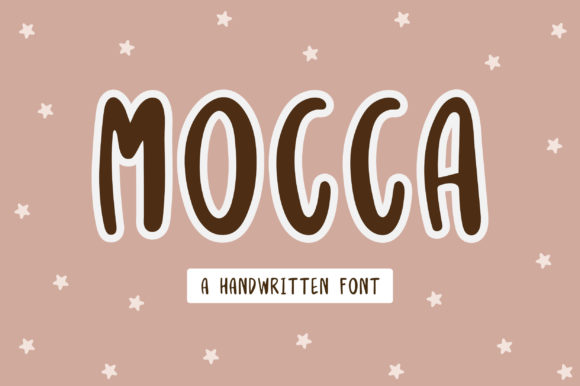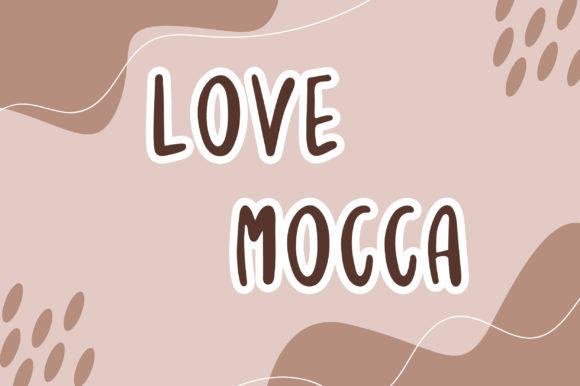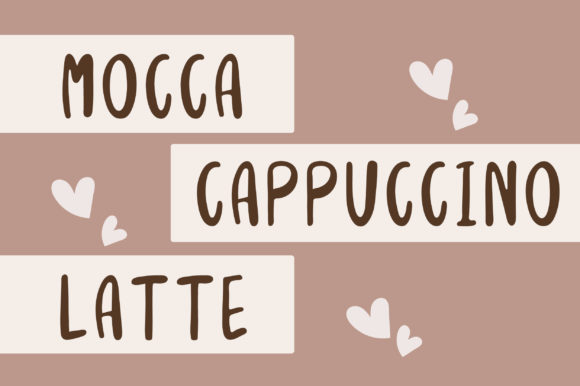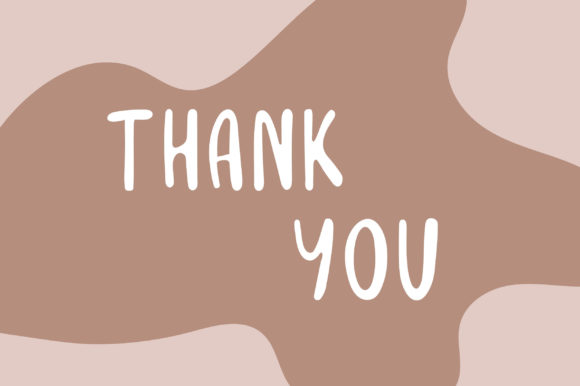
Mocca Font
About Mocca Font
Mocca, a delightful and friendly handwritten font, adds a playful touch to your design endeavors. With its fun and approachable demeanor, Mocca is more than just a typeface; it’s a creative tool that can turn any design idea into a true standout. Let yourself be inspired by its unique charm, and watch as it effortlessly breathes life into your projects, allowing you to craft lovely and engaging designs with ease.
The inherent playfulness of Mocca makes it a perfect choice for a variety of design applications. Whether you’re working on social media graphics, greeting cards, posters, or children’s book covers, Mocca injects a sense of joy and friendliness into your creations. Its handwritten style adds a personal and human touch, making your designs feel warm and relatable.
The versatility of Mocca allows it to adapt to different design contexts, making it suitable for both casual and more polished projects. It’s a font that doesn’t just communicate information but also conveys a mood and personality, making it a valuable asset in capturing the attention and hearts of your audience.
Embrace Mocca as a source of inspiration for your creative journey. Let its fun and friendly vibes guide your design choices, encouraging you to explore new ideas and experiment with various visual elements. Mocca is not just a font; it’s a catalyst for creativity, sparking joy and excitement in your design process.
In summary, Mocca is your go-to font when you want to infuse a dose of fun and friendliness into your designs. Allow its unique charm to inspire you, and let your creativity flow as you create lovely and standout designs that leave a lasting impression. With Mocca, every project becomes an opportunity to showcase your creativity and connect with your audience in a lighthearted and enjoyable way.